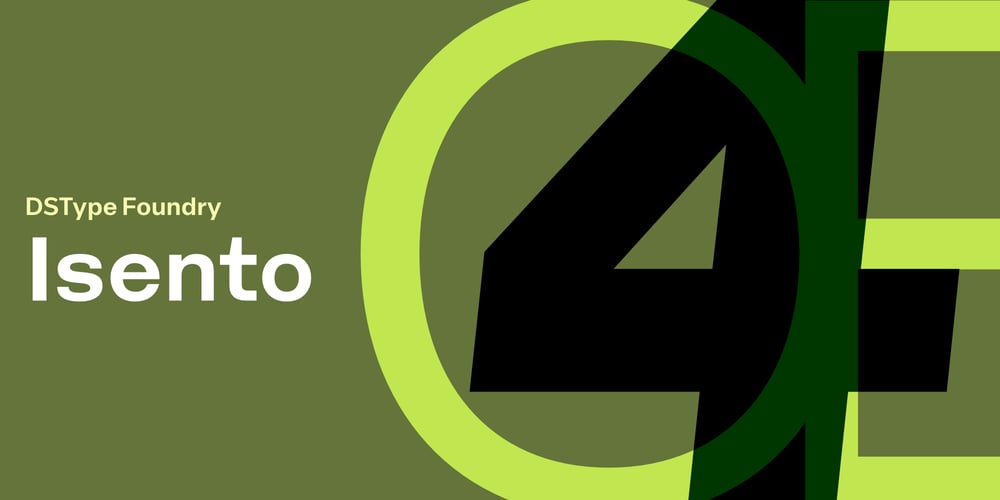
Isento Font Family was designed by Dino dos Santos and published by Monotype. Isento contains 5 styles and family package options. We always wanted to design a gothic typeface. Our most similar typefaces are Rude and Firme, but Rude has some very delicate curves especially visible in the vertical strokes and Firme introduces a type family with reasonably big ascenders and descenders. On the other hand, Isento has a much more straightforward approach to the particular genre. Loosely inspired by Times Gothic, introduced in the American Type Founders Specimen Book and Catalogue from 1923, soon followed its very own path. Is our first typeface that clearly shows a distinct weight difference between the uppercase and the lowercase and the spacing is very open to provide a much more mechanical feeling. Isento and Isento Slab ranges from Thin to ExtraBold with perfectly matching italics. Immediately seemed very clear that a slab serif companion would follow the sans, therefore Isento Slab is the perfect companion to Isento, with very strong rectangular serifs, ideal to set short passages of text or to become the key actor in a big headline.